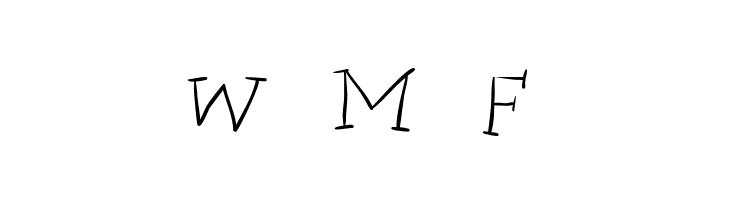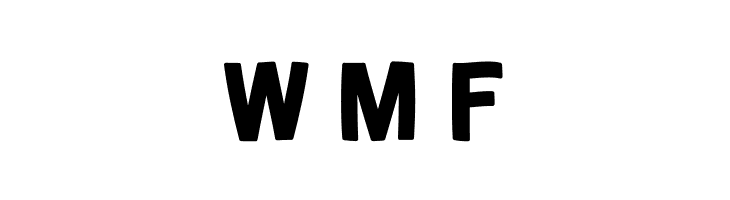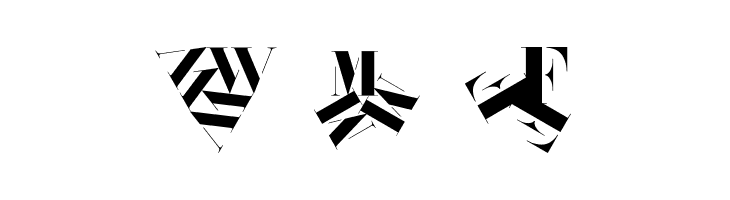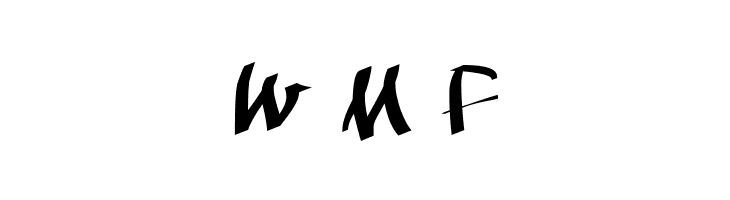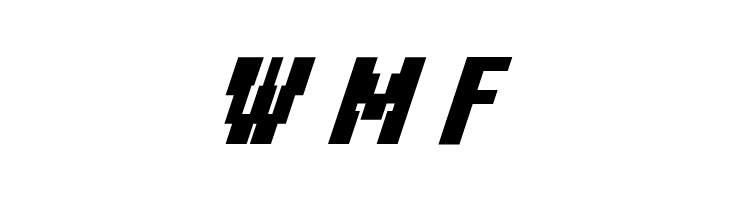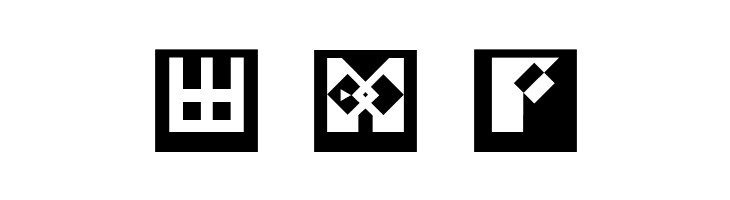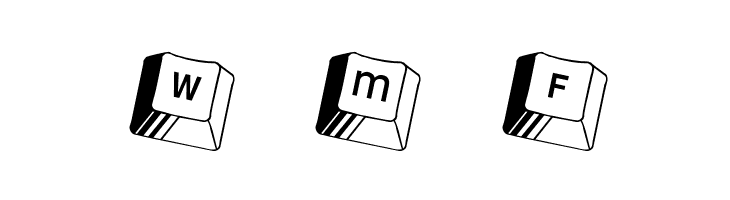
• KleidosChaplina
A geometric and abstract decorative font with high contrast and dynamic style.
• KleinBricksNegative
A decorative, geometric font with bold, angular shapes and unique patterns.
• KleinHeadline-BoldOblique
A bold, oblique font with a modern and dynamic style.
• Kleinigkeiten
A whimsical, decorative font with cartoon-like, hand-drawn characters.
• KleinKallig
A dynamic, calligraphic font with bold, angular strokes and artistic flair.
• KleinKarpets
Abstract, optical illusion-inspired decorative font with warped geometric patterns.
• Kleinkeys
A playful, 3D computer key-inspired font with a nostalgic tech vibe.
• Kleins Dancing Slapzerif
A playful, hand-drawn style font with irregular, dancing letterforms.
• KleinsanBold
A bold, rounded font with a modern and impactful style.
• KleinsBirdsNoTen
A collection of whimsical bird illustrations with abstract and playful designs.